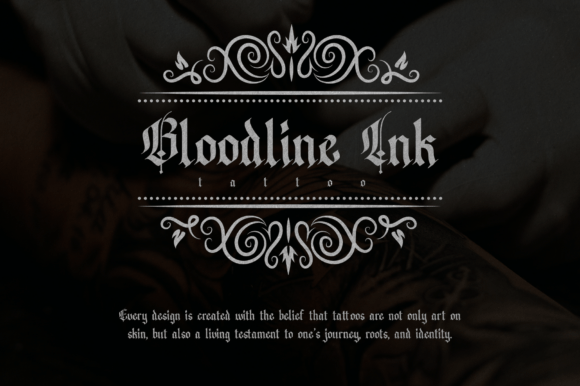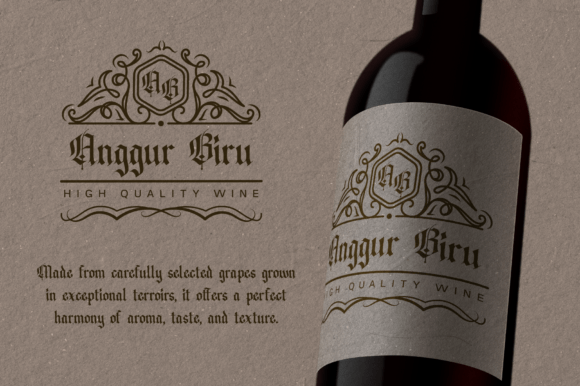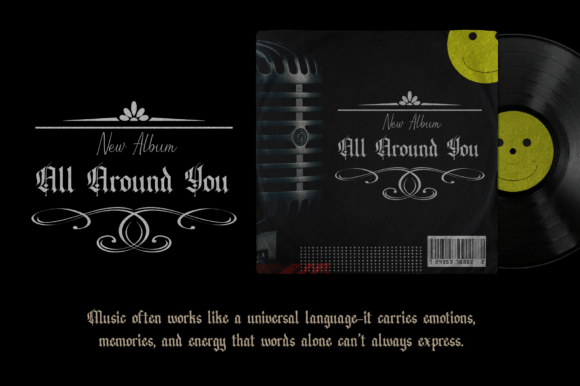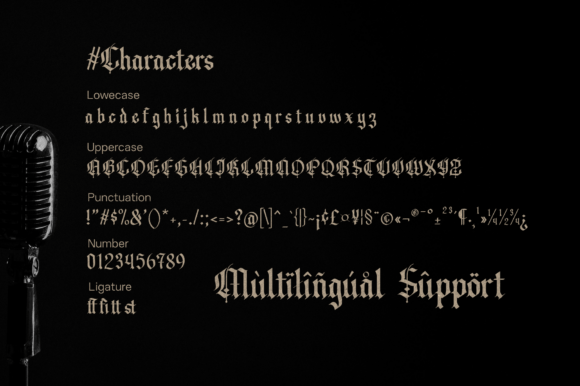
Alicante Font: A Timeless Blackletter Typeface for Elegant Designs
In the world of typography, few fonts manage to capture the essence of medieval elegance while exuding a modern edge. Alicante Font is one such remarkable typeface that seamlessly blends the traditional with the contemporary, making it a go-to choice for designers seeking to infuse their projects with a sense of authority, tradition, and timeless style.
The Essence of Alicante Font
Alicante is a bold and striking Blackletter font that draws inspiration from medieval calligraphy, yet presents itself with a modern twist. Its sharp strokes, dramatic curves, and intricate details evoke a sense of nostalgia, transporting us back to the era of illuminated manuscripts and Gothic architecture. This font is not just a typeface; it’s an experience that brings a touch of medieval artistry and gothic flair to any design.
Alicante’s design is characterized by its gothic-inspired characters, sharp serifs, and flowing strokes that give it a dynamic and elegant feel. The font’s bold nature makes it highly legible, even at smaller sizes, ensuring that your message is conveyed with clarity and impact. Its versatility allows it to be used in a variety of contexts, from traditional to modern designs, making it a valuable addition to any designer’s toolkit.
Alicante’s unique blend of medieval elegance and modern edge makes it perfect for a wide range of projects. Here are some of the areas where Alicante truly shines:
- Logos: Create a lasting impression with a logo that exudes tradition and authority. Alicante’s bold and striking appearance ensures that your brand stands out.
- Posters: Whether you’re advertising an event, a product, or a service, Alicante’s dramatic curves and sharp strokes make your poster eye-catching and memorable.
- Book Covers: Give your book a medieval touch that hints at the timelessness of its content. Alicante is perfect for fiction, especially in the fantasy, historical, and mystery genres.
- Tattoos: For those looking to get a tattoo with a unique font, Alicante offers a stylish and meaningful choice. Its gothic flair adds a layer of personalization and artistry.
- Apparel: Stand out with clothing and accessories that feature elegant and bold typography. Alicante’s design ensures that your apparel designs are both stylish and attention-grabbing.
- Music Album Covers: For musicians and music producers, Alicante offers a way to give your album a cover that reflects the mood and genre of your music, especially for those in the gothic, metal, and classical genres.
- Branding: Enhance your brand’s visual identity with a font that communicates strength, tradition, and elegance. Alicante is versatile enough to be used across various platforms, from digital media to print.
Why Choose Alicante Font?
Alicante is more than just a font; it’s a statement. Its ability to blend the traditional with the modern makes it a versatile tool for designers. Here are a few reasons why Alicante stands out:
- Unique and Memorable: In a world filled with generic fonts, Alicante offers a unique and memorable alternative that can set your designs apart.
- Versatile: From vintage to contemporary designs, Alicante’s versatility shines through, making it suitable for a wide range of projects.
- Elegant and Bold: Alicante strikes the perfect balance between elegance and boldness, making it ideal for designs that require a touch of sophistication and strength.
| Author | Mytype Studio |
Alicante Font is a powerful tool for designers looking to add a touch of medieval artistry and gothic flair to their work. Its blend of traditional elegance and modern edge makes it perfect for projects that demand authority, tradition, and timeless style. Whether you’re working on a logo, poster, book cover, or any other design project, Alicante is sure to deliver a powerful visual impact that stands out. Embrace the elegance and boldness of Alicante, and make your designs unforgettable.